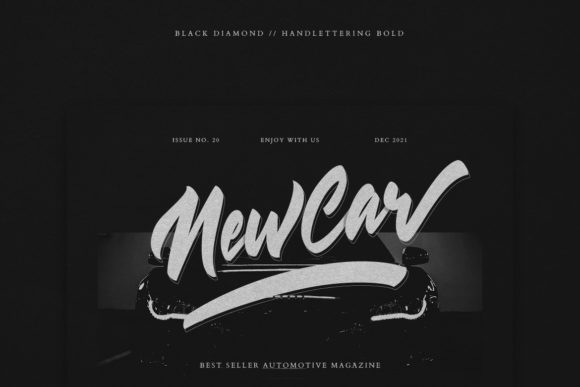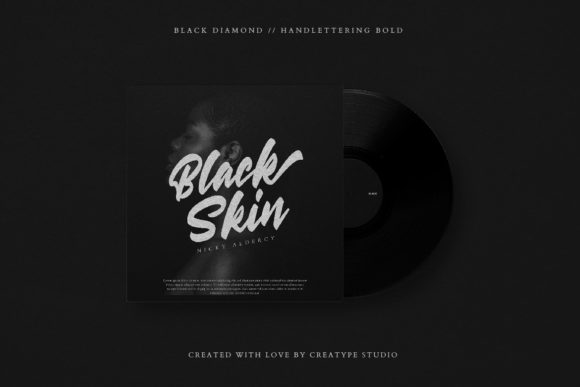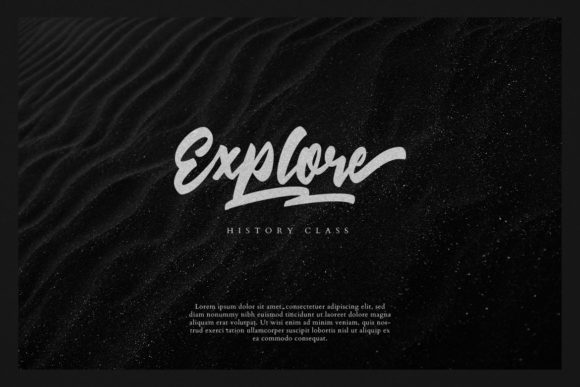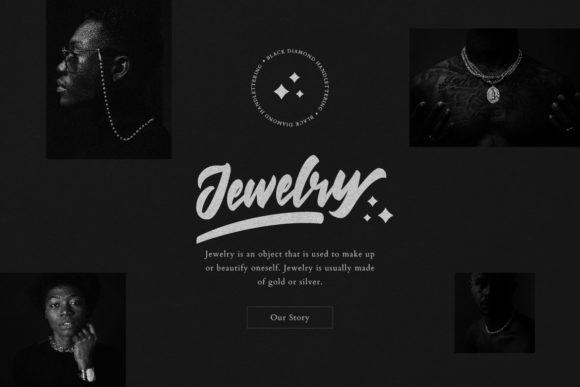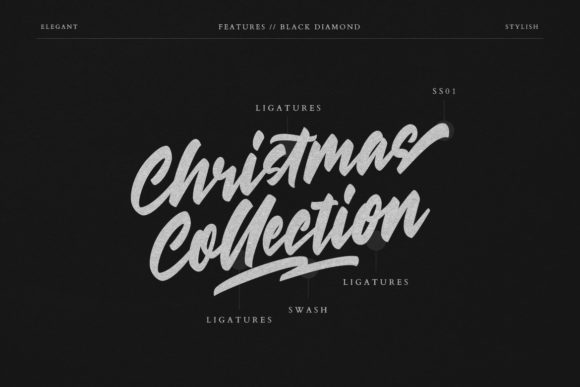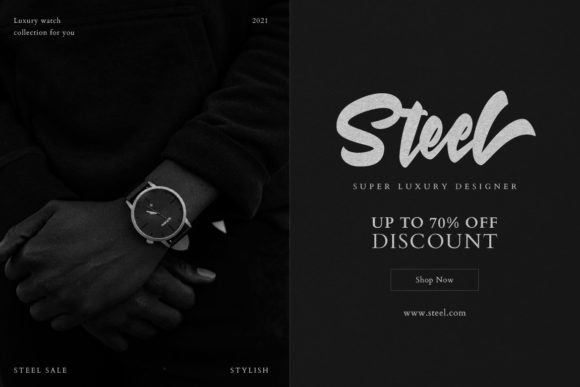
Unleash Your Creativity with Black Diamond Font: A Timeless Paint Brushed Handwritten Font
Are you a designer, crafter, or DIY enthusiast looking for a font that can add a touch of elegance and sophistication to your projects? Look no further than the Black Diamond Font, a lovely and timeless paint brushed handwritten font that is sure to capture your audience’s attention. In this article, we’ll explore the features and benefits of Black Diamond Font, and how it can be the perfect choice for creating eye-catching logos, branding, and quotes.
What is Black Diamond Font?
Black Diamond Font is a beautiful, hand-painted font that mimics the look of traditional brush lettering. Its unique, cursive style is both elegant and rustic, making it perfect for a wide range of design projects, from logos and branding to quotes and social media graphics. The font is carefully crafted to give your text a personal, hand-painted feel that will set your designs apart from the rest.
Key Features of Black Diamond Font
So, what makes Black Diamond Font so special? Here are just a few of its key features:
- Timeless Design: Black Diamond Font has a classic, timeless design that will never go out of style. Its elegant, cursive style is perfect for creating sophisticated and eye-catching designs.
- Hand-Painted Look: The font has a beautiful, hand-painted look that gives your text a personal, unique feel.
Uses for Black Diamond Font
Black Diamond Font is a versatile font that can be used for a wide range of design projects, including:
- Logos and Branding: Create eye-catching logos and branding materials that will set your business apart from the rest.
- Quotes and Social Media Graphics: Add a touch of elegance and sophistication to your quotes and social media graphics.
- Invitations and Stationery: Create beautiful invitations and stationery that will make your correspondence stand out.
- Crafting and DIY Projects: Use Black Diamond Font to add a personal touch to your crafting and DIY projects, such as handmade cards, gift tags, and more.
Black Diamond Font is a beautiful, timeless paint brushed handwritten font that is perfect for designers, crafters, and DIY enthusiasts. With its elegant, cursive style and PUA encoding, it’s easy to use and customize. Whether you’re creating logos and branding, quotes and social media graphics, or crafting and DIY projects, Black Diamond Font is the perfect choice. So why wait? Download Black Diamond Font today and unleash your creativity!